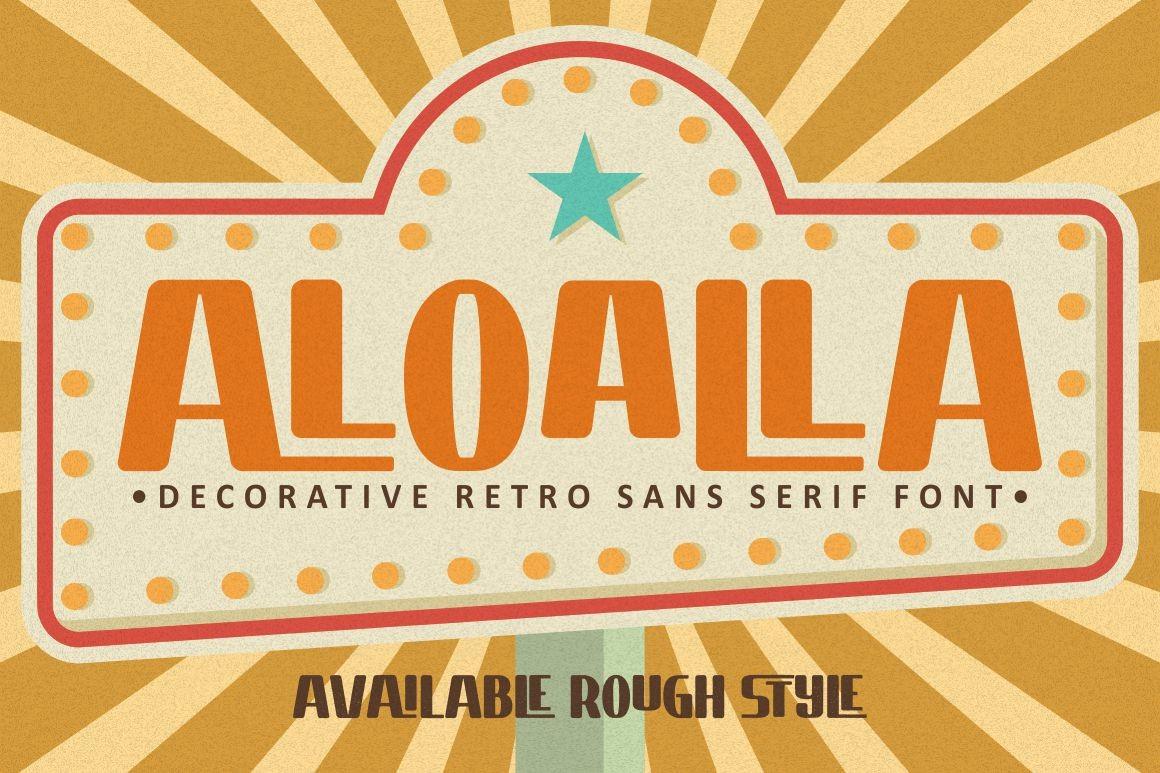
Aloalla Font Description
Aloalla is a vintage styled, rough textured display font. It is PUA encoded which means you can access all of the amazing glyphs and ligatures with ease! Add it confidently to your favorite creations and let yourself be amazed by the outcome generated.